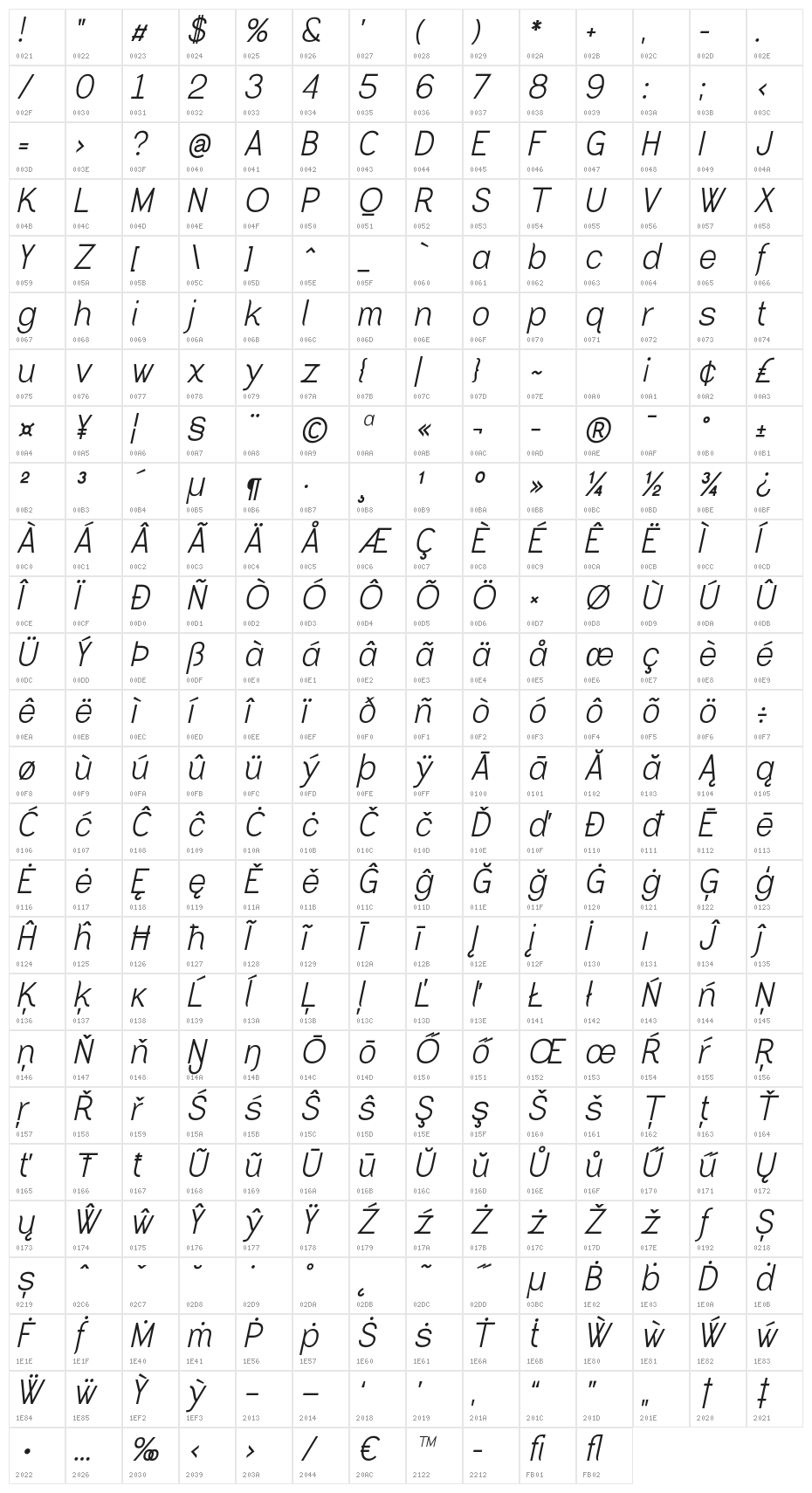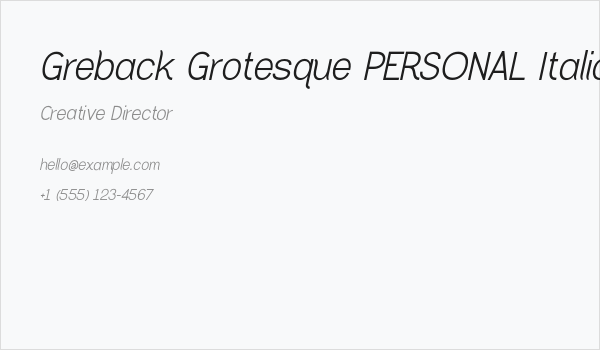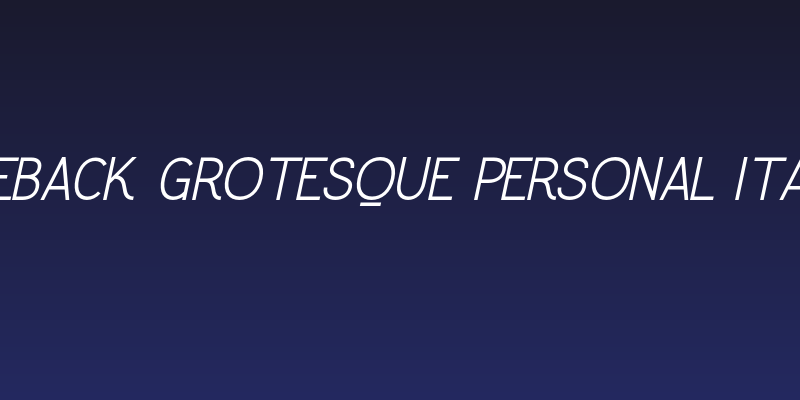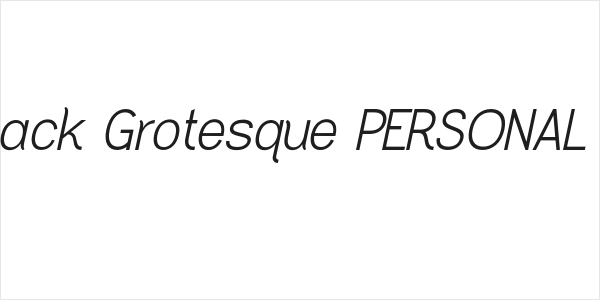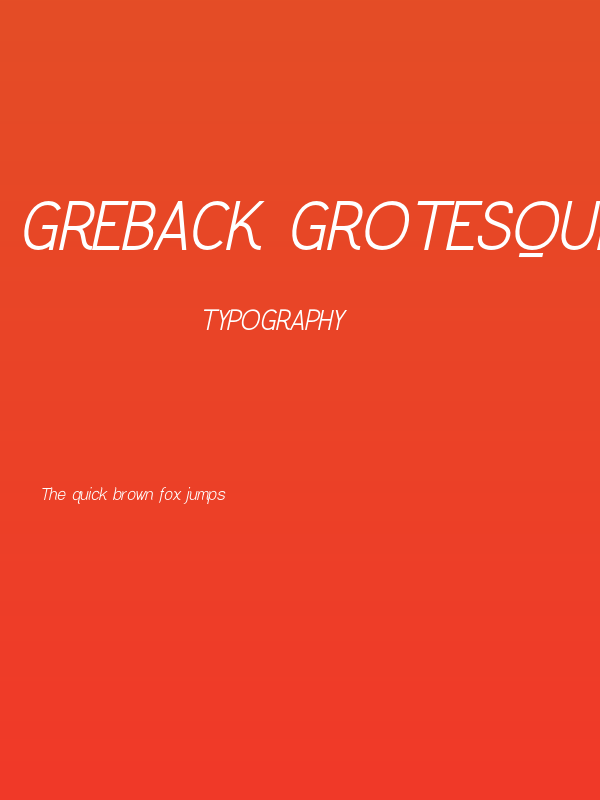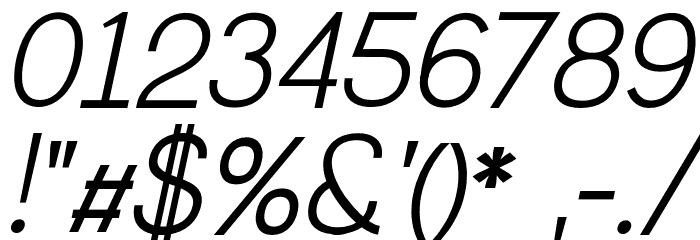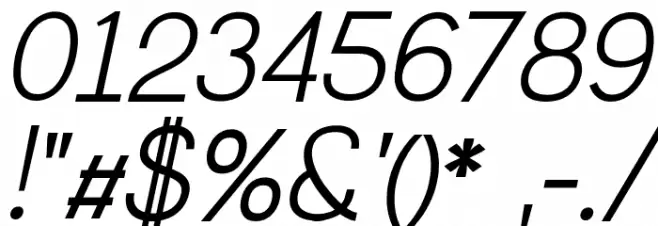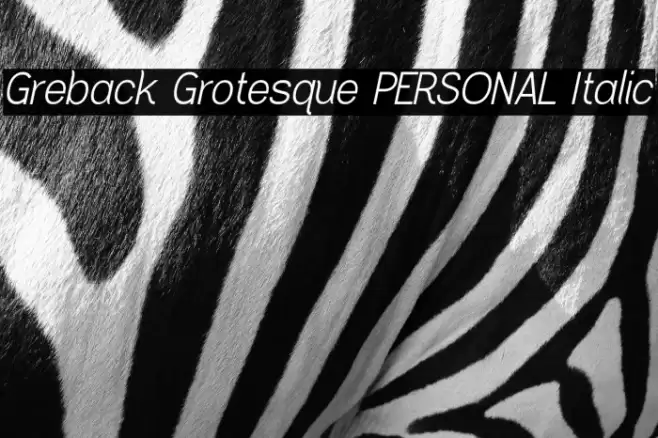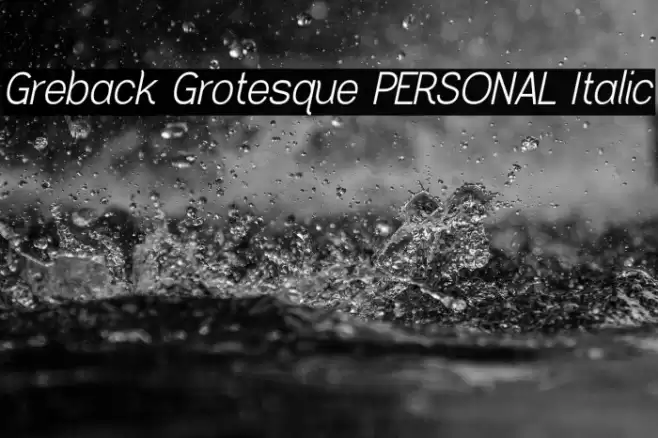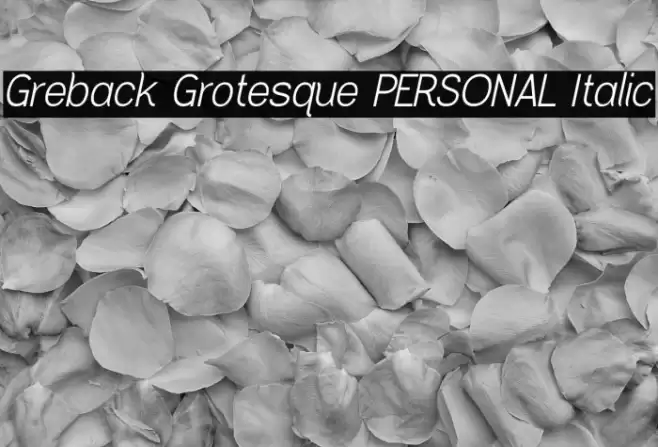
Greback Grotesque PERSONAL Italic Font
Greback Grotesque PERSONAL Italic Description
This font features a sleek and modern design with a distinct italic slant, giving it a dynamic and forward-moving appearance. The characters are clean and geometric, with a uniform stroke width that maintains consistency across both uppercase and lowercase letters. The numbers and special characters are crafted to match the overall aesthetic, ensuring a cohesive look. The font's simplicity and elegance make it versatile for various design applications, while its italic style adds a touch of sophistication and movement.
| Use Case | Headlines, Logos, Editorial design |
| Proposed Projects | Ideal for branding, advertising, and editorial design projects that require a modern and dynamic touch. |